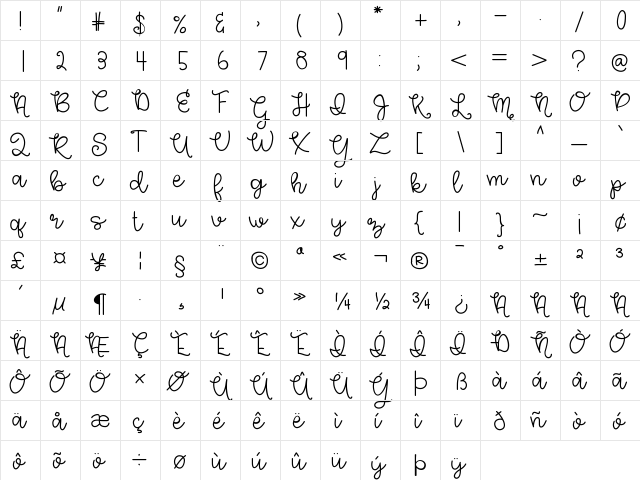
HelloMorgan Medium
Design Context for HelloMorgan Typeface
HelloMorgan is a composed and adaptable typeface that performs quietly and consistently across a wide range of design contexts.